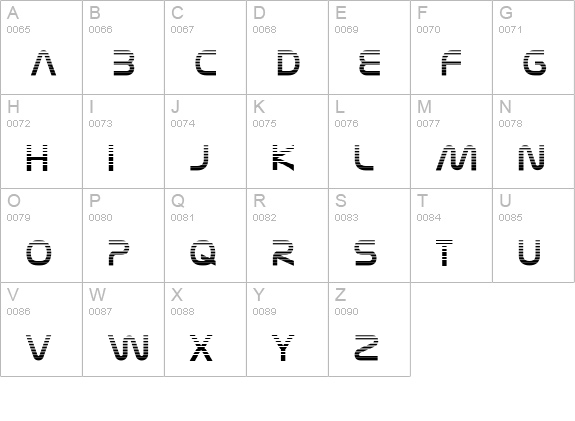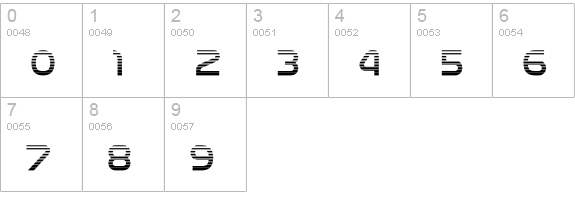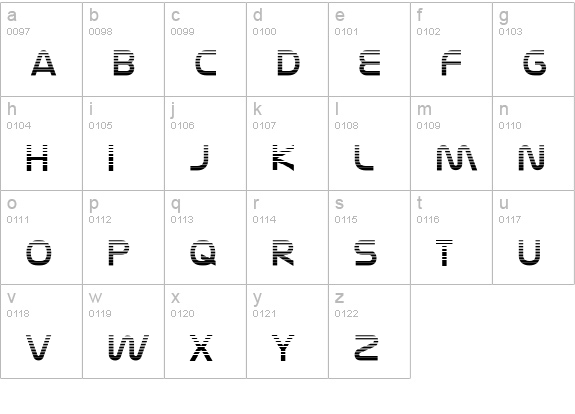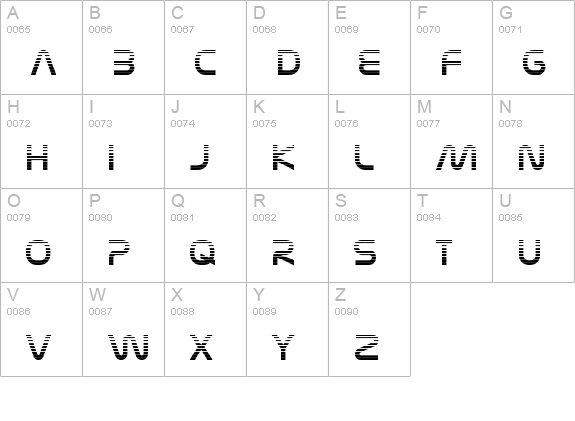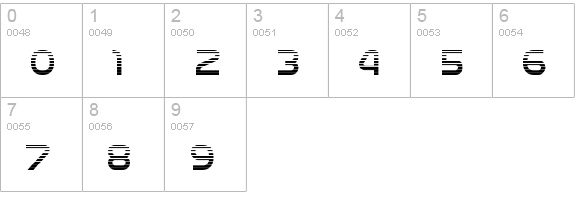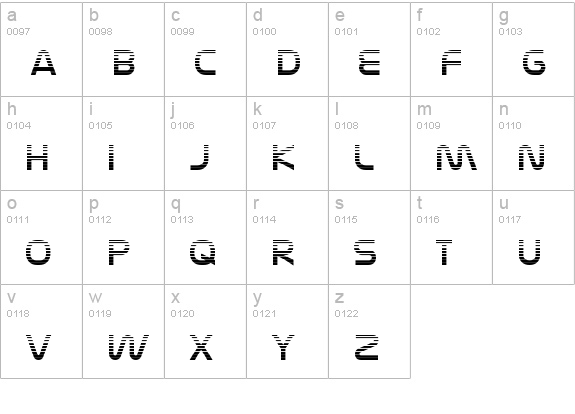
Nasalization Video font is a modern and sleek typeface that exudes a futuristic and technological vibe. With its sharp lines and geometric shapes, this font is perfect for creating eye-catching designs for videos, presentations, and digital content. The font's unique style adds a touch of sophistication and professionalism to any project. The best part? Nasalization Video font is available for free! You can easily download this font at FontsMarket.com and start using it in your projects right away. Whether you're working on a branding campaign, a website design, or a social media post, Nasalization Video font will elevate your creations to the next level. Don't miss out on this fantastic opportunity to enhance your designs with this stunning and versatile font.